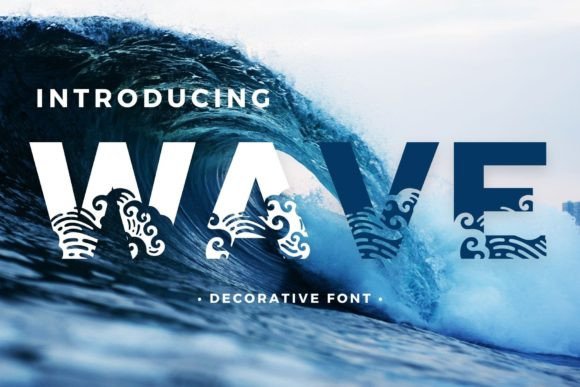
Welcome to our collection of the Best Fonts for Beach Logos! We are excited to introduce you to Wave Font, the perfect addition to your design toolkit. Created by Brown Cupple Typeface, Wave Font is a cute and funny decorative font that will bring a touch of whimsy to any project.
Whether you're creating a blog post, a logo, branding, ads, invitations, greeting cards, planners, photo albums, or decorations, Wave Font is a versatile font that will help you stand out from the crowd. Its unique and playful style is perfect for any project that requires a fun and lighthearted touch.
But Wave Font isn't just cute and funny. It's also incredibly easy to use. With its clean and simple lines, this font is easy to read and won't distract from the message you're trying to convey. Plus, it comes in a variety of weights and styles, so you can find the perfect fit for your project.
So why should you choose Wave Font? Well, for starters, it's the perfect font for any project that needs a touch of whimsy. Whether you're creating a beach-themed logo or a fun and playful greeting card, Wave Font will help you achieve the perfect look. And with its ease of use and versatility, it's a font that you'll keep coming back to time and time again.
In short, Wave Font is the perfect addition to any designer's toolkit. It's fun, easy to use, and incredibly versatile. So why not give it a try? Add it to any of your designs, and enjoy the results!